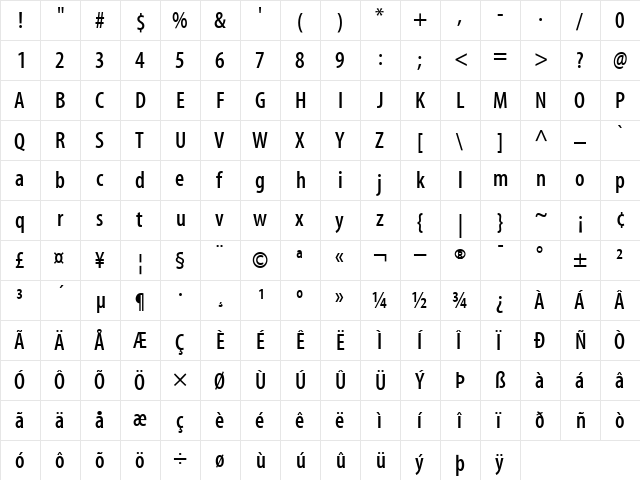
AdobeCorporateIDMyriadPackage Roman
Design Context for AdobeCorporateIDMyriadPackage Typeface
AdobeCorporateIDMyriadPackage is a composed and adaptable typeface that performs quietly and consistently across a wide range of design contexts.